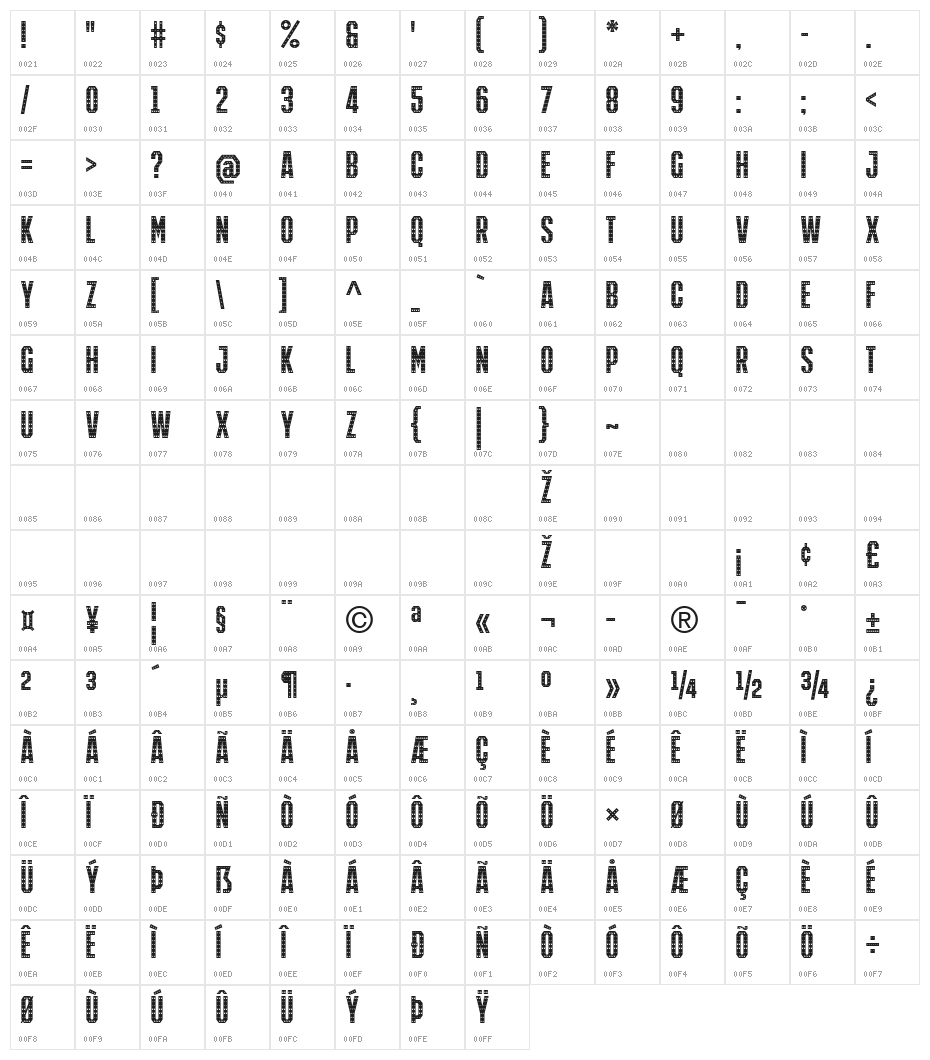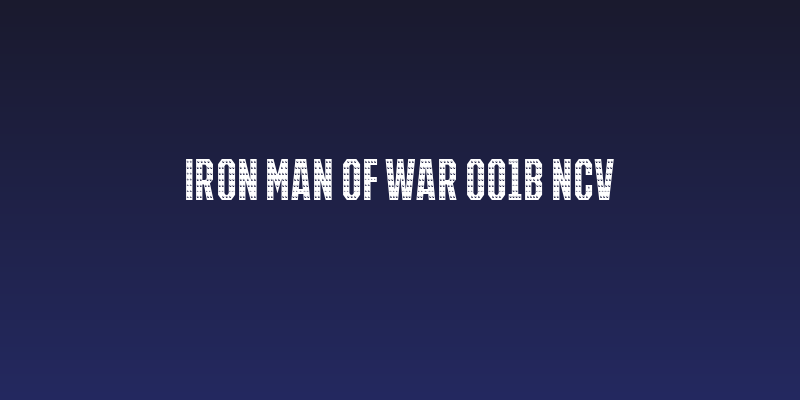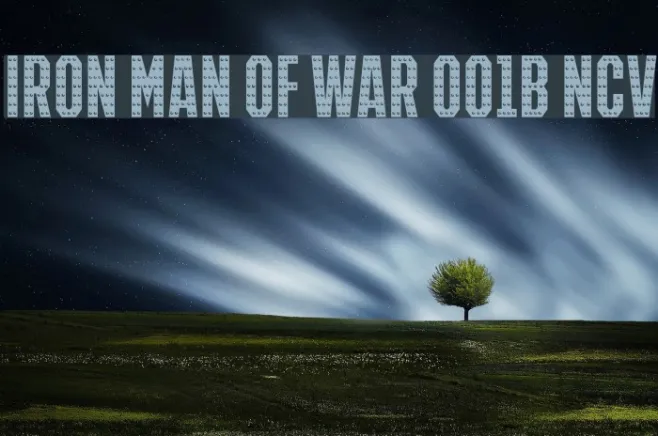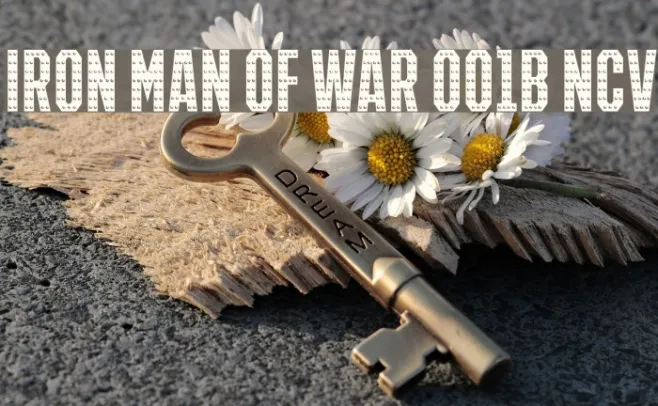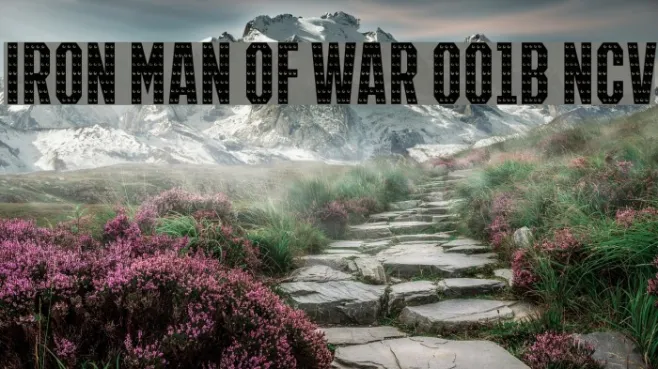
IRON MAN OF WAR 001B NCV Font
IRON MAN OF WAR 001B NCV Description
This font features a bold, industrial design with a riveted texture that gives it a rugged, metallic appearance. The characters are blocky and geometric, with sharp edges and a uniform thickness throughout. The rivet details add a three-dimensional effect, making the letters appear as if they are constructed from metal plates. This distinctive style is reminiscent of machinery and engineering, evoking a sense of strength and durability. The font includes a full set of uppercase and lowercase letters, numbers, and a variety of special characters, all maintaining the same robust aesthetic.
| Overall Style | Industrial, Rugged |
| Use Case | Logos, Posters, Branding |
| Proposed Projects | Ideal for projects related to engineering, construction, or any theme requiring a strong, industrial look. Suitable for posters, logos, and branding materials that aim to convey toughness and durability. |